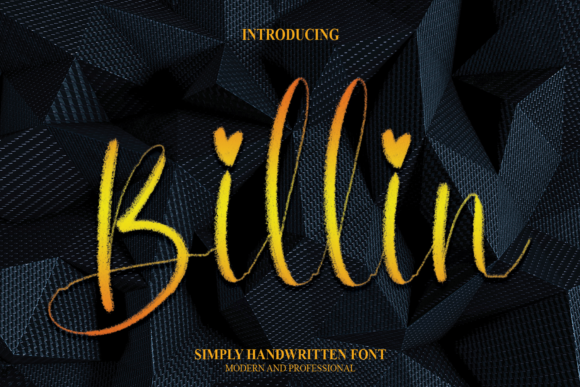
Meet Billin, an enchanting script font that embodies elegance and sophistication. Its ethereal beauty will transform your creative endeavors, adding a touch of timeless charm to every letterform.
Crafted by the renowned font artist Creativewhitee, Billin boasts an intricate character set meticulously designed to evoke a sense of grace and allure. Its fluidity and delicate curves mimic the finest penmanship, injecting a personal and artisanal touch into your digital creations.
Whether you're a seasoned designer or a creative enthusiast, Billin empowers you to unleash your imagination. Its versatility knows no bounds, making it the perfect choice for a myriad of projects. Envision the impact it will have on your:
- **Logos:** Billin's refined strokes will elevate your brand identity, creating a lasting impression that speaks volumes about your commitment to quality and aesthetics.
- **Branding Projects:** Infuse your marketing materials with a touch of exclusivity and sophistication. Billin will make your brochures, packaging, and social media presence stand out from the crowd.
- **Labels:** Add a touch of elegance to your product labeling. Billin's intricate details will transform ordinary packaging into works of art, capturing the attention of discerning customers.
- **Photography:** Enhance your digital memories with Billin's delicate touch. Its graceful curves will complement your images, adding a layer of charm and sentimentality.
- **Watermarks:** Protect your digital assets with style. Billin's unique character set will create distinctive watermarks, safeguarding your work while showcasing its beauty.
- **Special Events:** Celebrate life's milestones with a touch of sophistication. Billin will add an element of elegance to your invitations, menus, and other event-related materials.
- **And Beyond:** The possibilities are endless with Billin. Let your creativity soar and explore its potential in countless other projects.
Embrace the magic of Billin today and embark on a journey of creative expression like never before. Its beauty and versatility will ignite your imagination and elevate your work to new heights of sophistication and style.